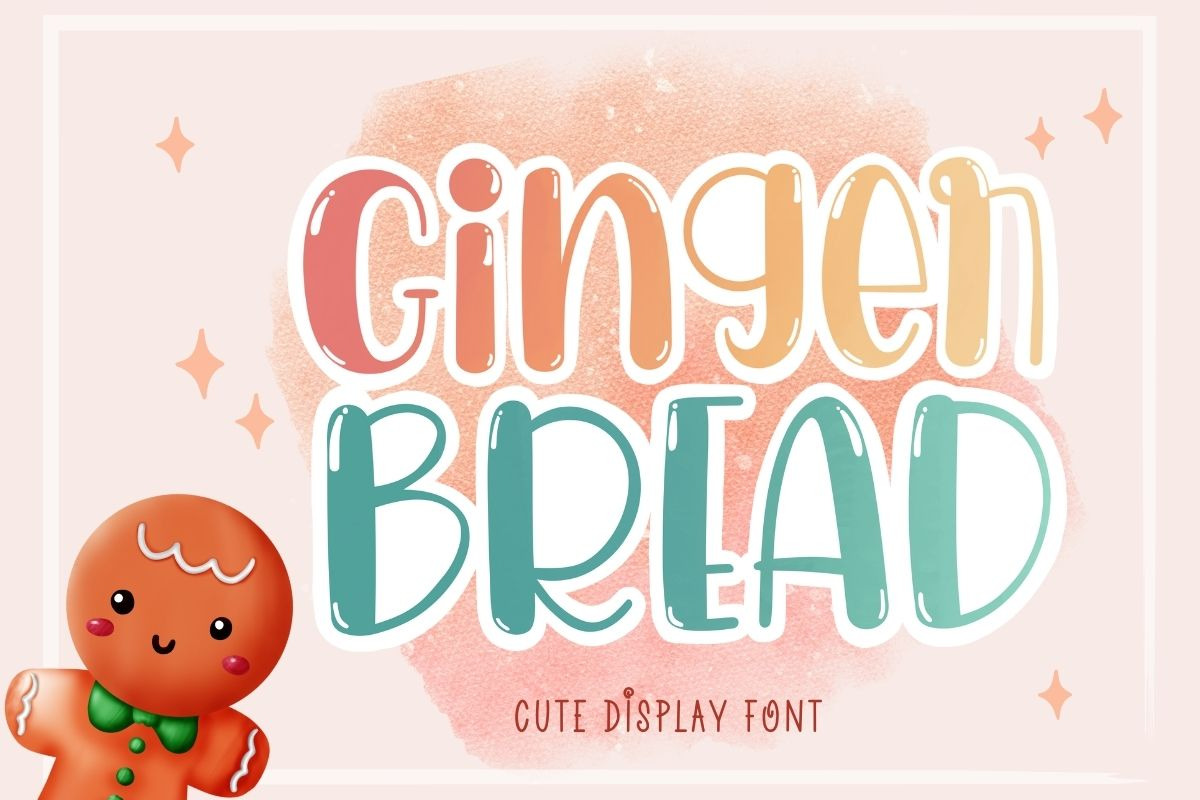
Gingerbread | Display Font
Gingerbread is a cute display font that will help you enjoy and have fun with your designs. Perfect for creating a wide variety of new designs to match products such as banners, content, mugs, cards, shirts, stationery, social media posts, and more!